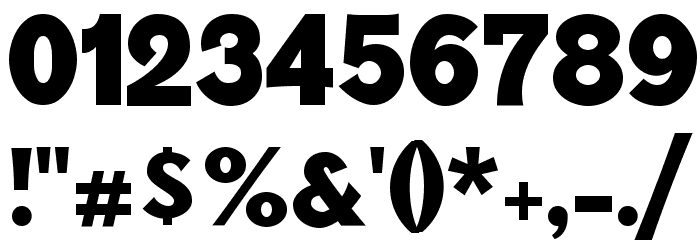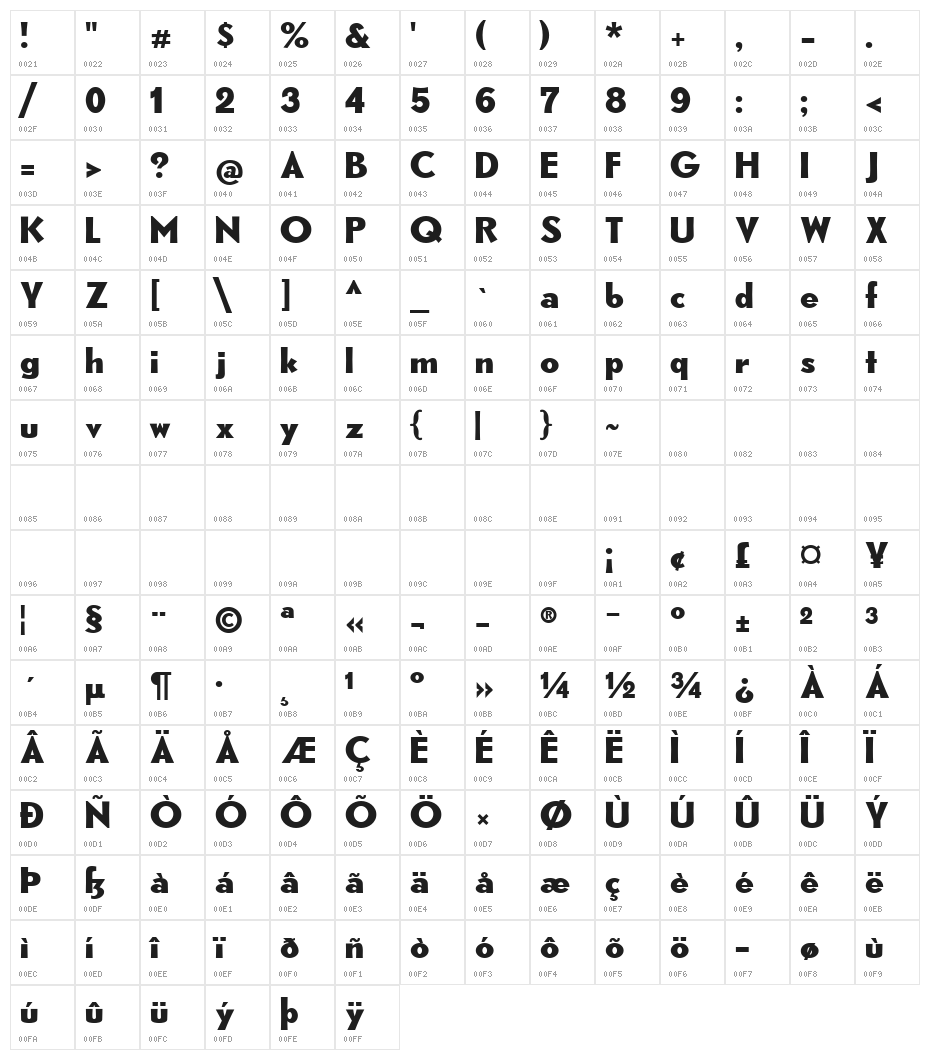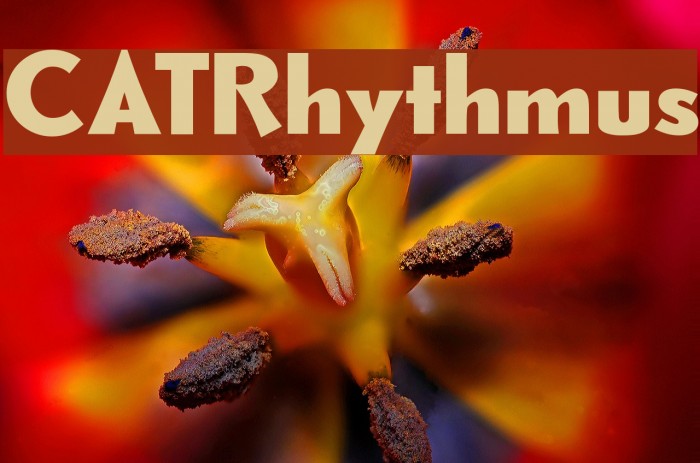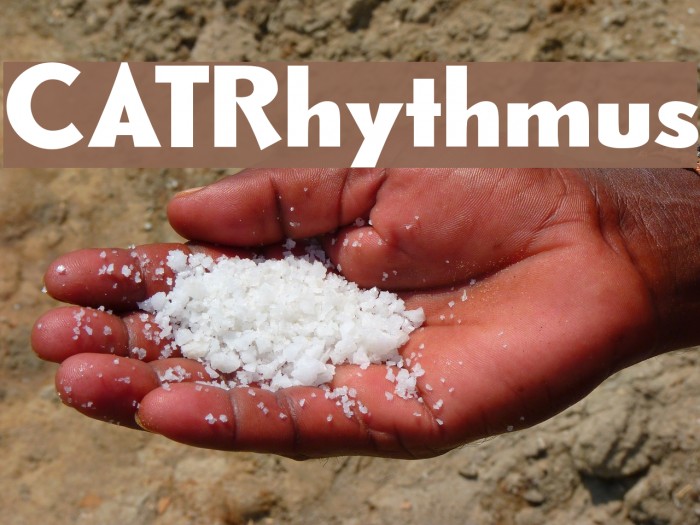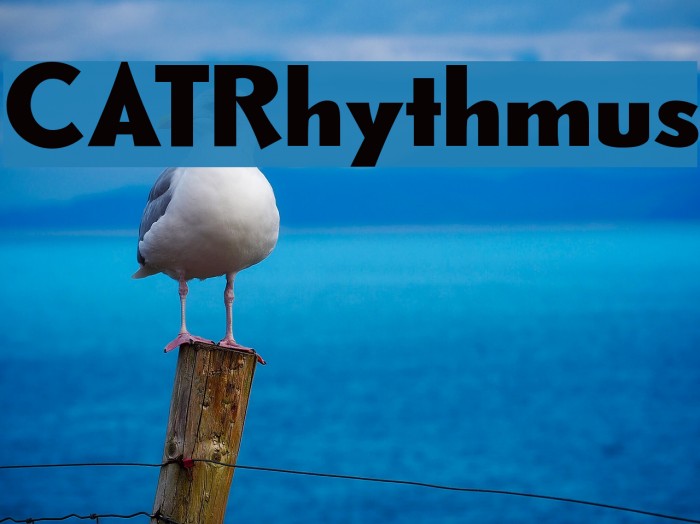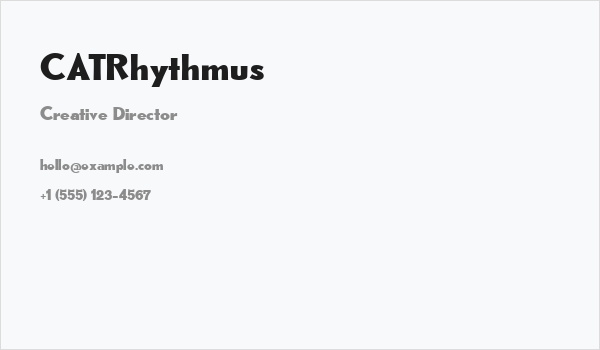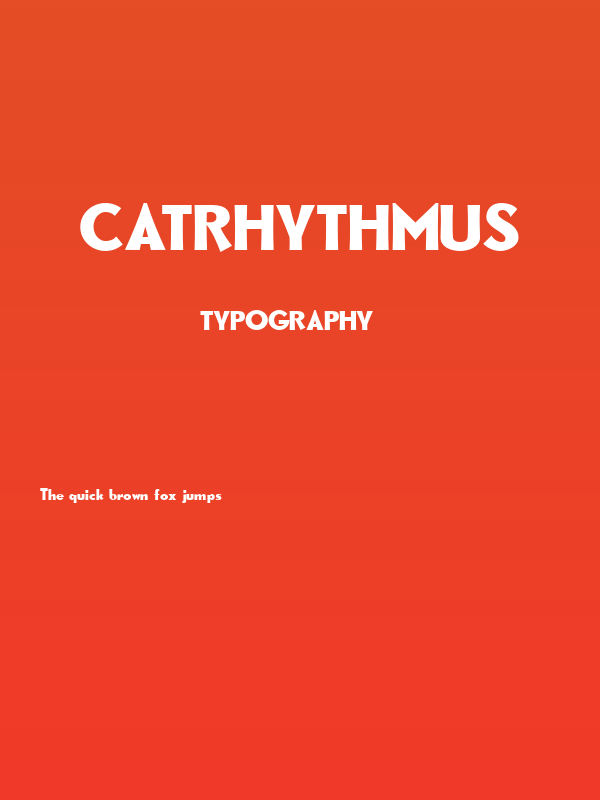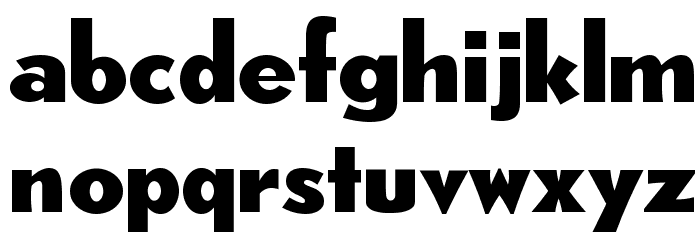
CATRhythmus Font
CATRhythmus Description
This font features bold, geometric letterforms with a strong presence. The characters are uniformly thick, giving it a robust and impactful appearance. The uppercase letters are particularly striking, with a consistent height and width that enhances readability. The lowercase letters maintain the boldness, with rounded edges that soften the overall look. Numbers and special characters are designed to match the bold style, ensuring a cohesive appearance across all text. This font is ideal for making a statement, with its clear and assertive design.
| Proposed Projects | Ideal for headlines, posters, branding, and any project requiring a bold statement. |